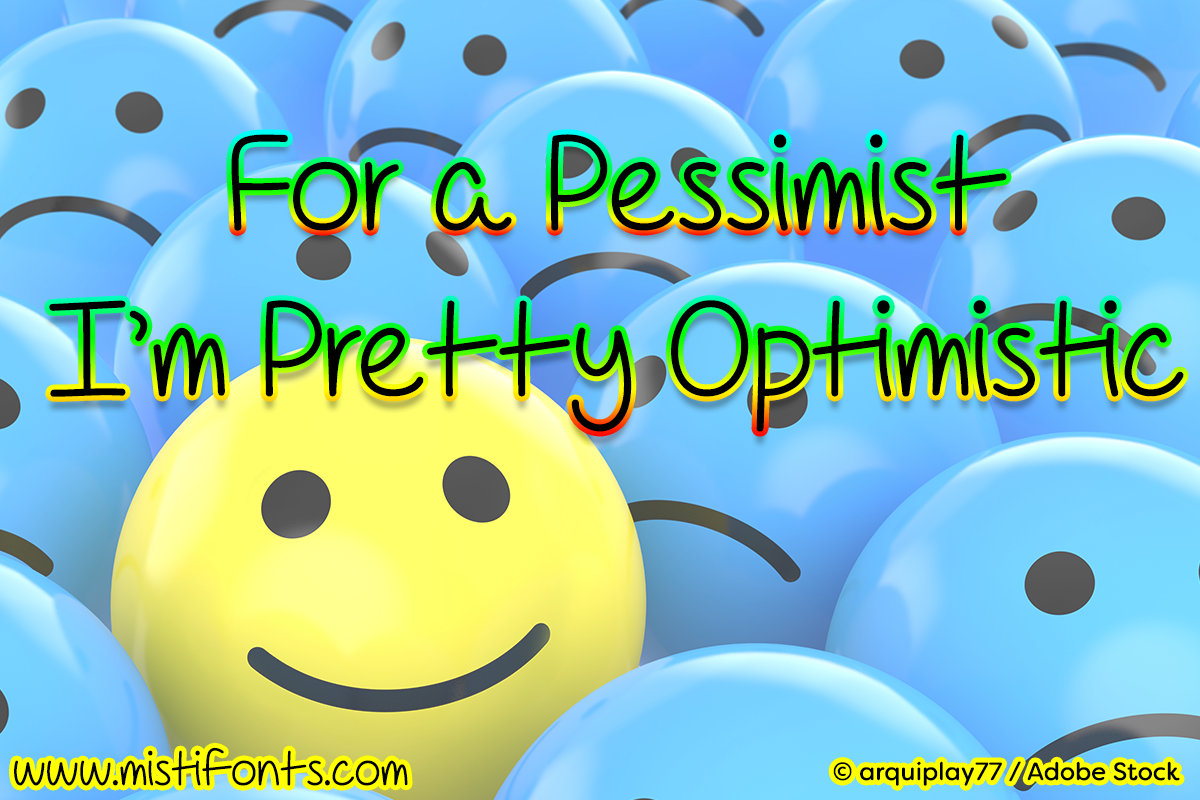
For A Pessimist I’m Pretty Optimistic
For A Pessimist I’m Pretty Optimistic is a cool handwritten font that is perfect for your design and craft projects!